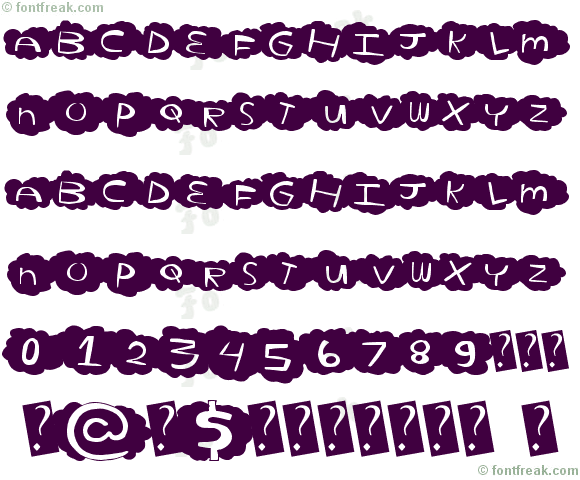
CloudHome
About CloudHome
CloudHome, created by XEROGRAPHER FONTS in 2012, is a playful display font that seamlessly blends whimsy with uniqueness. This font falls into the decorative category, characterized by its rounded, cloud-like shapes that evoke a sense of lightness and creativity. The stroke weight is consistent, providing a smooth and friendly appearance, while the lack of sharp edges adds to its approachable nature. The spacing between the letters is generous, allowing for easy readability, making it a suitable choice for various design applications.
The CloudHome font is ideal for a range of creative projects. It works wonderfully for children’s party invitations, where its fun and cheerful aesthetic can capture the essence of celebration. Additionally, it is a great fit for quirky restaurant menus, bringing a sense of charm and playfulness to the dining experience. Graphic designers may find it useful for creating eye-catching posters, especially for music festivals or art exhibitions aimed at a younger audience. Furthermore, small business owners looking to establish a friendly brand identity can leverage this font on their websites or promotional materials. Content creators can also use the CloudHome font free download to enhance their social media graphics, adding a unique flair to their visual storytelling.
The target audience for CloudHome includes graphic designers, small business owners, and content creators who seek to inject a sense of creativity and personality into their work. What truly sets the CloudHome font apart is its ability to evoke a sense of joy and playfulness while remaining highly versatile. Its distinctive design ensures that any project it graces will stand out, making it an excellent choice for those looking to make a memorable impression. Whether for personal or professional use, CloudHome brings a delightful touch to any design endeavor.